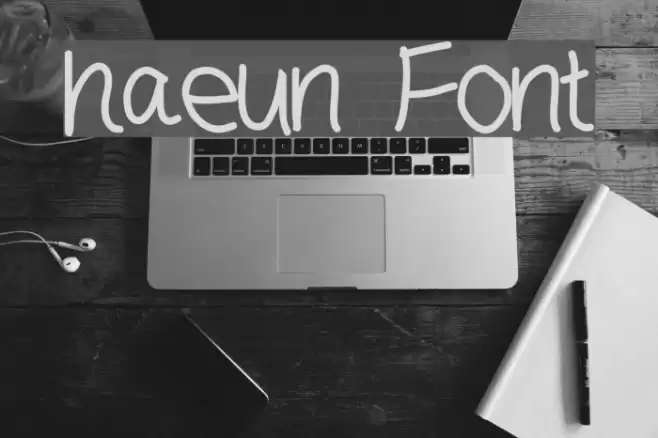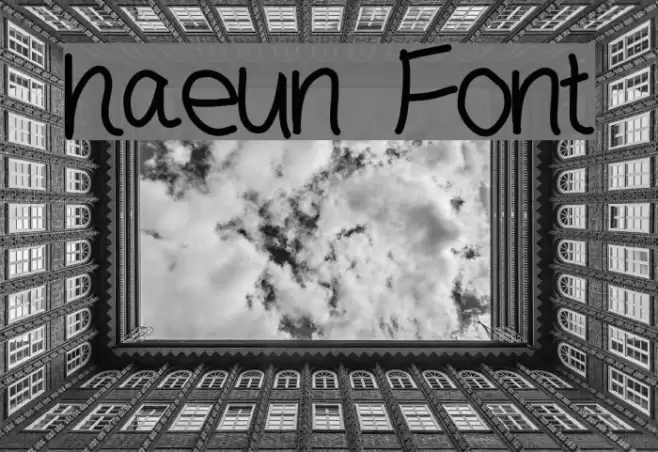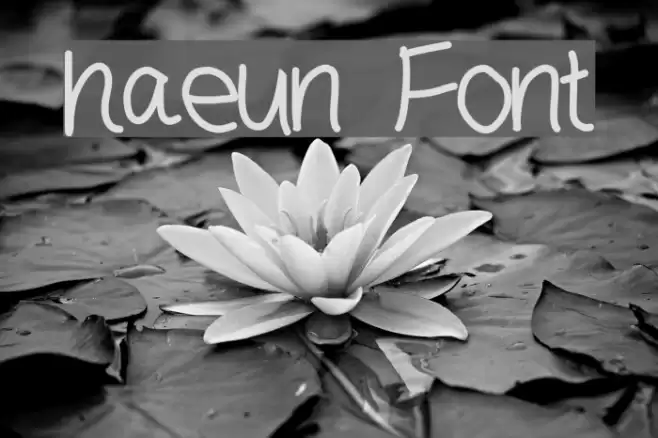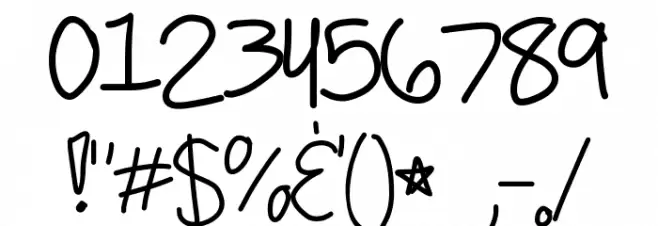
haeun Font
haeun Description
This font features a playful and casual handwritten style, characterized by its smooth, rounded edges and slightly irregular letterforms. The uppercase and lowercase letters maintain a consistent flow, giving a sense of movement and personality. The numerals and special characters complement the alphabet with a similar informal and approachable design. The overall appearance is friendly and inviting, making it suitable for projects that require a personal touch.
A playful, casual handwritten font with smooth, rounded edges from Handwritten fonts.
- Proposed Projects: Ideal for greeting cards, children's books, personal branding, and informal invitations.
- Overall Style: Casual
- Use Case: Headlines, Informal text, Personal projects